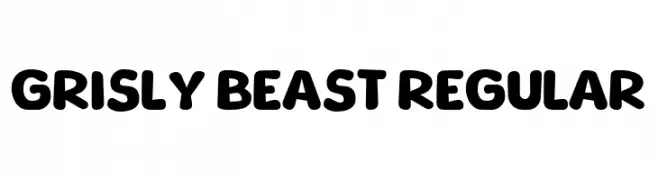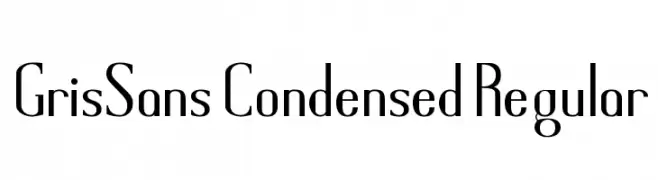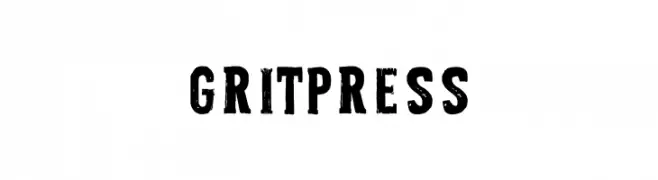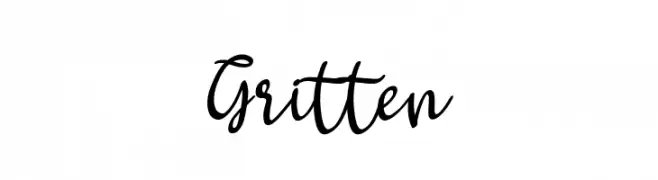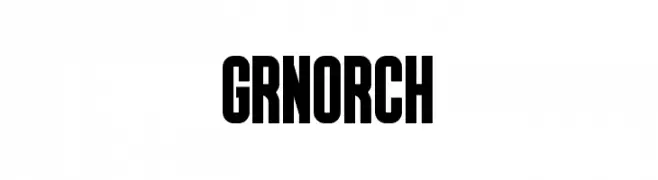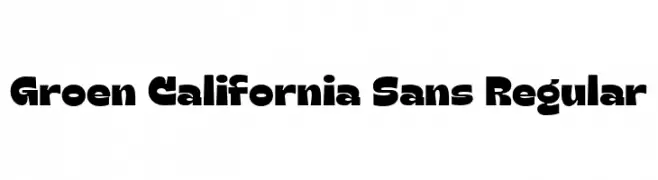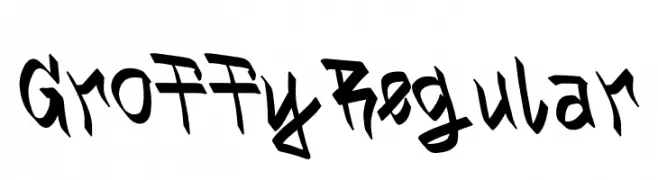
( Fonts by Niskala Huruf )
A bold, rounded font with a playful and whimsical style.
( Shawn Griswold )
A modern, condensed sans-serif font with clean lines and minimal contrast.
( Fonts by Dimitri Castrique )
A bold, distressed font with a gritty, vintage industrial style.
A bold, jagged font with a claw-like, aggressive style.
A bold, geometric font with a modern and impactful design.
( Fonts by Fargun Studio )
A bold, playful font with wide, rounded characters.
( Fonts by Inesh Dewi )
A bold, graffiti-inspired font with sharp, angular lines and a dynamic, hand-drawn style.